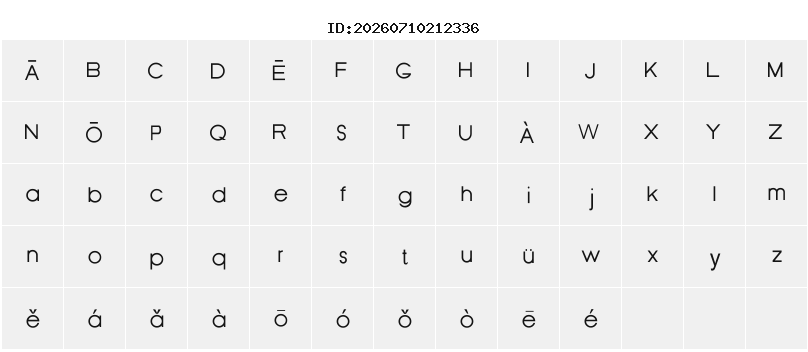
GB Pinyinok Preview
About GB Pinyinok.ttf
GB Pinyinok.ttf is a modern, elegant sans-serif font designed for ultimate readability and visual harmony. Perfect for branding, headlines, web design, and print materials.